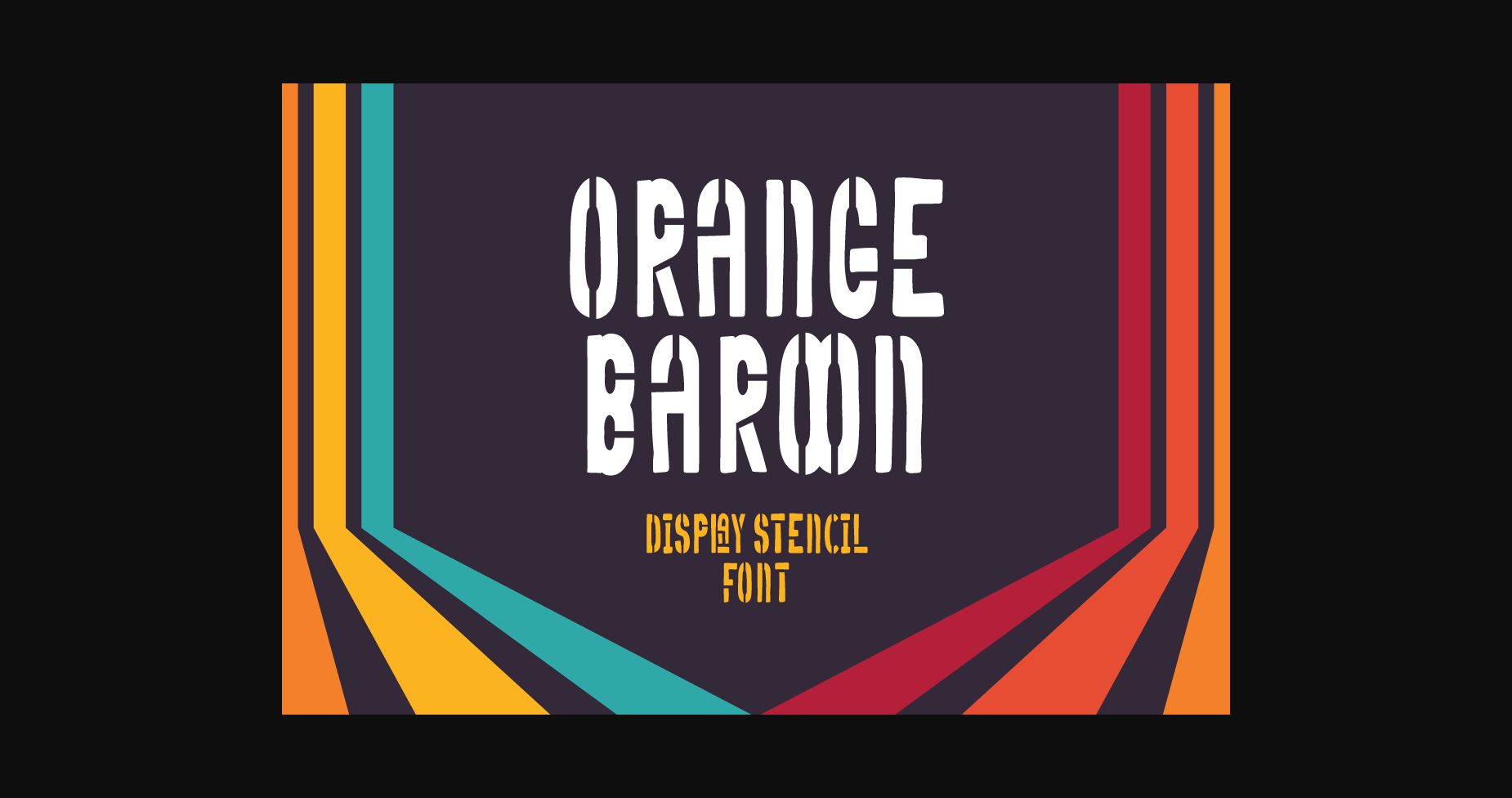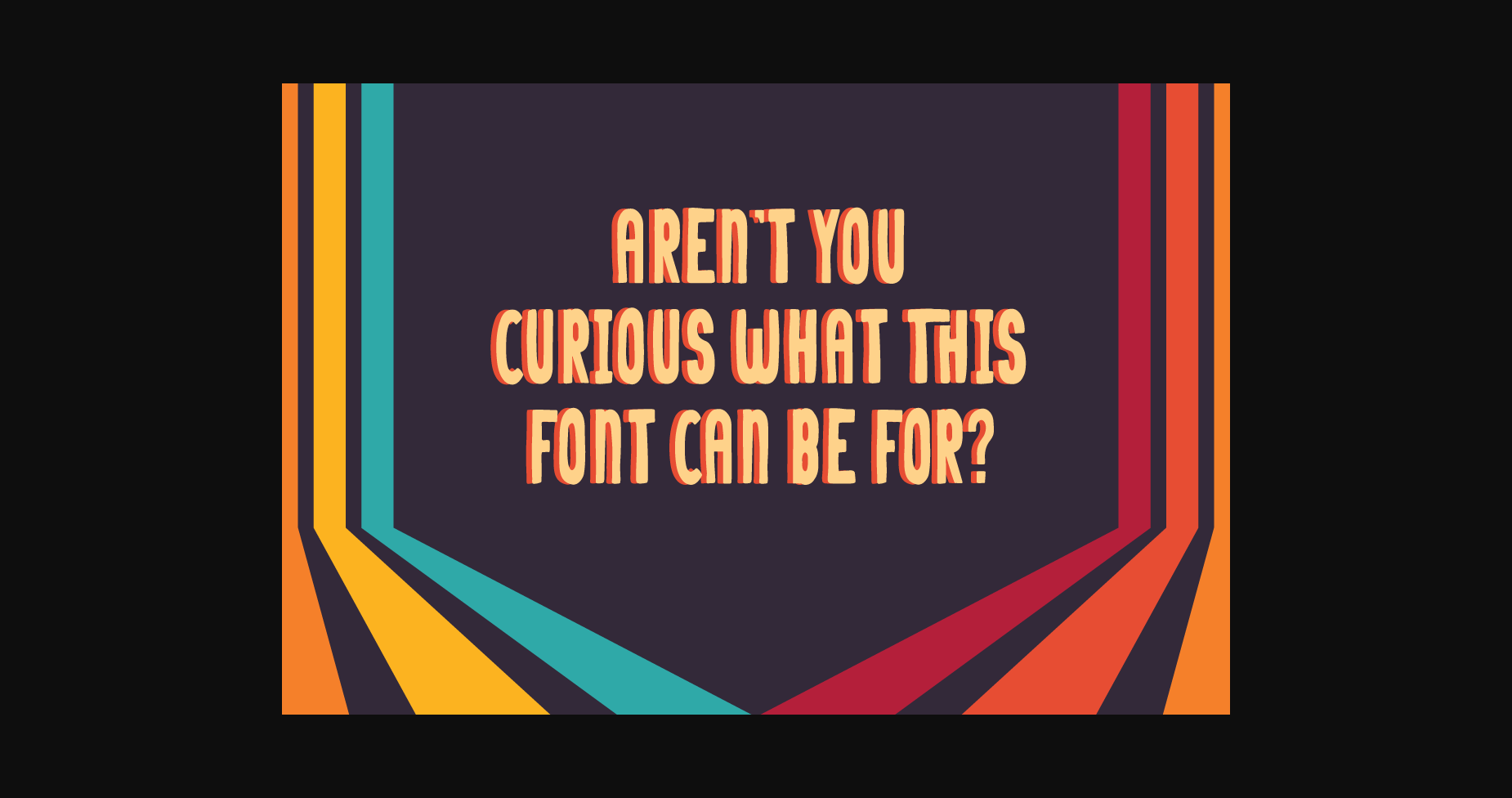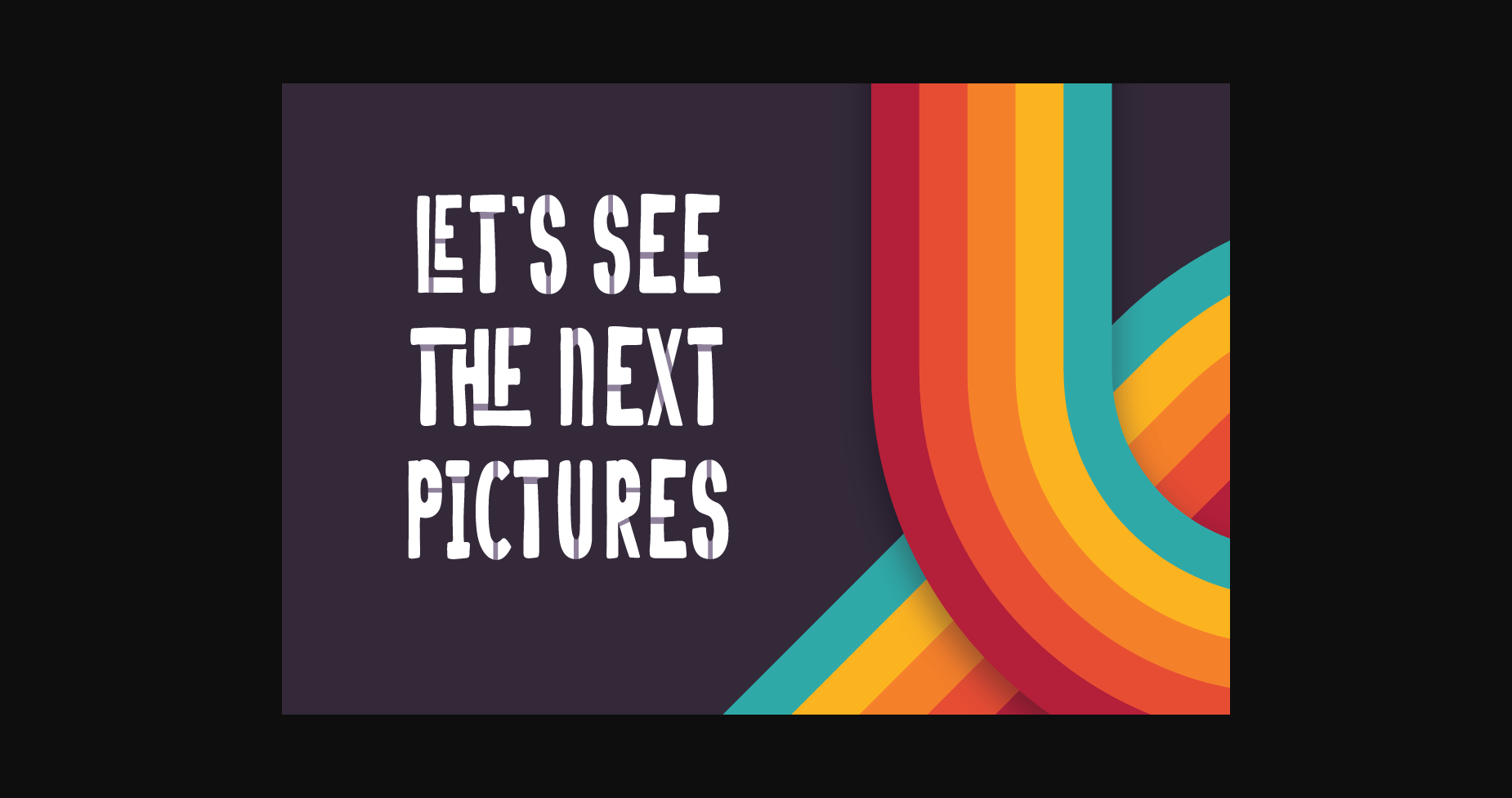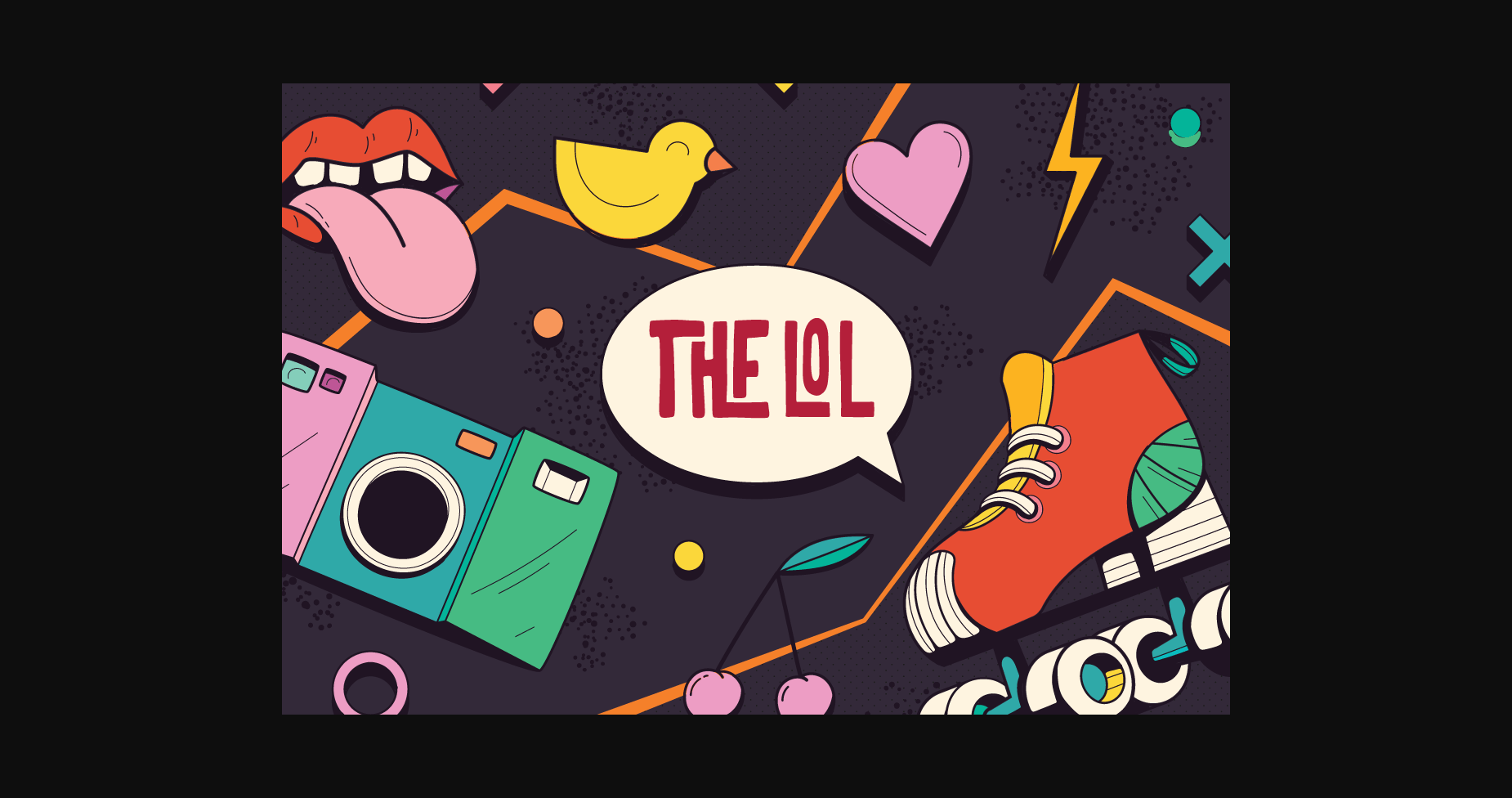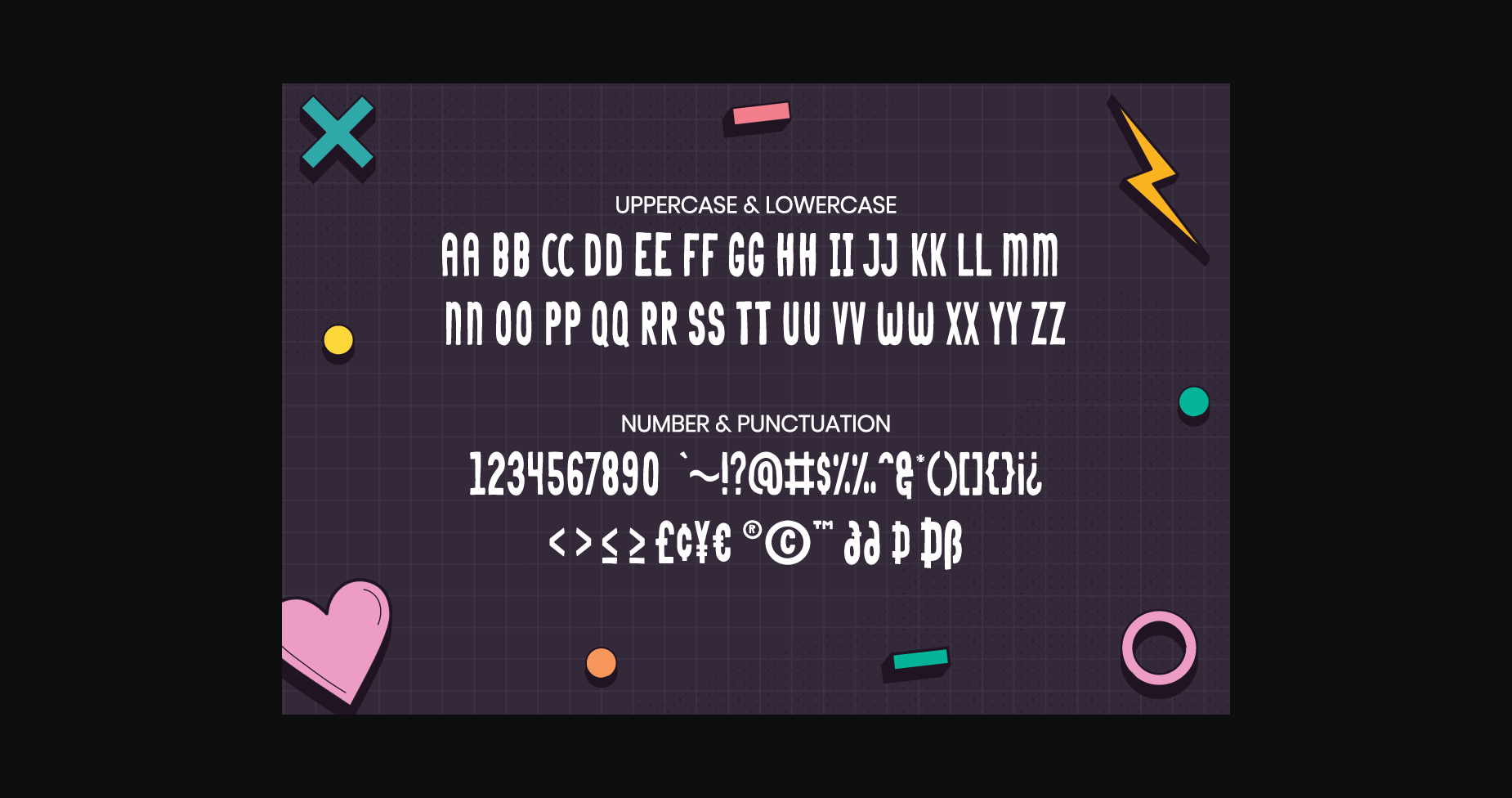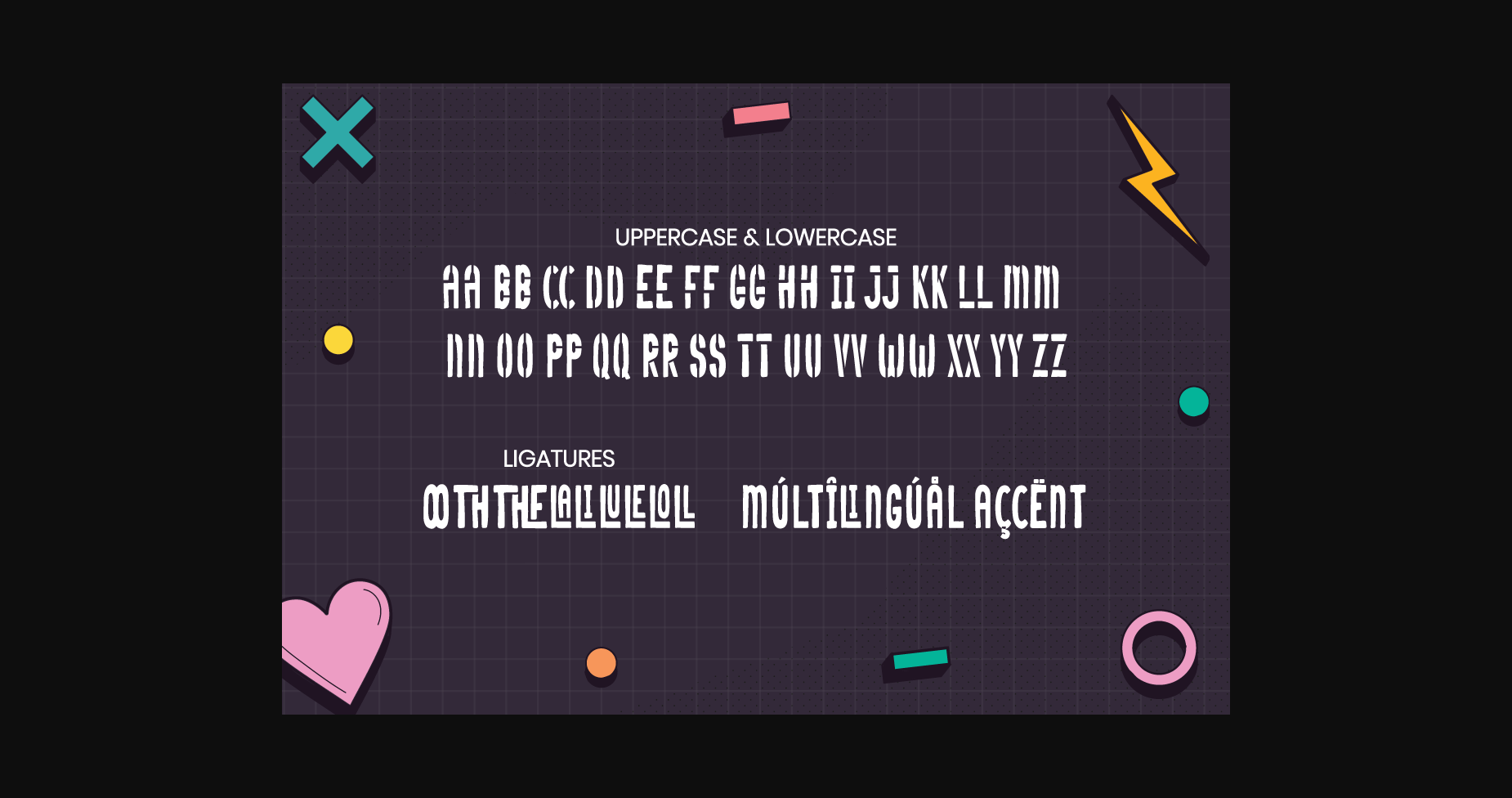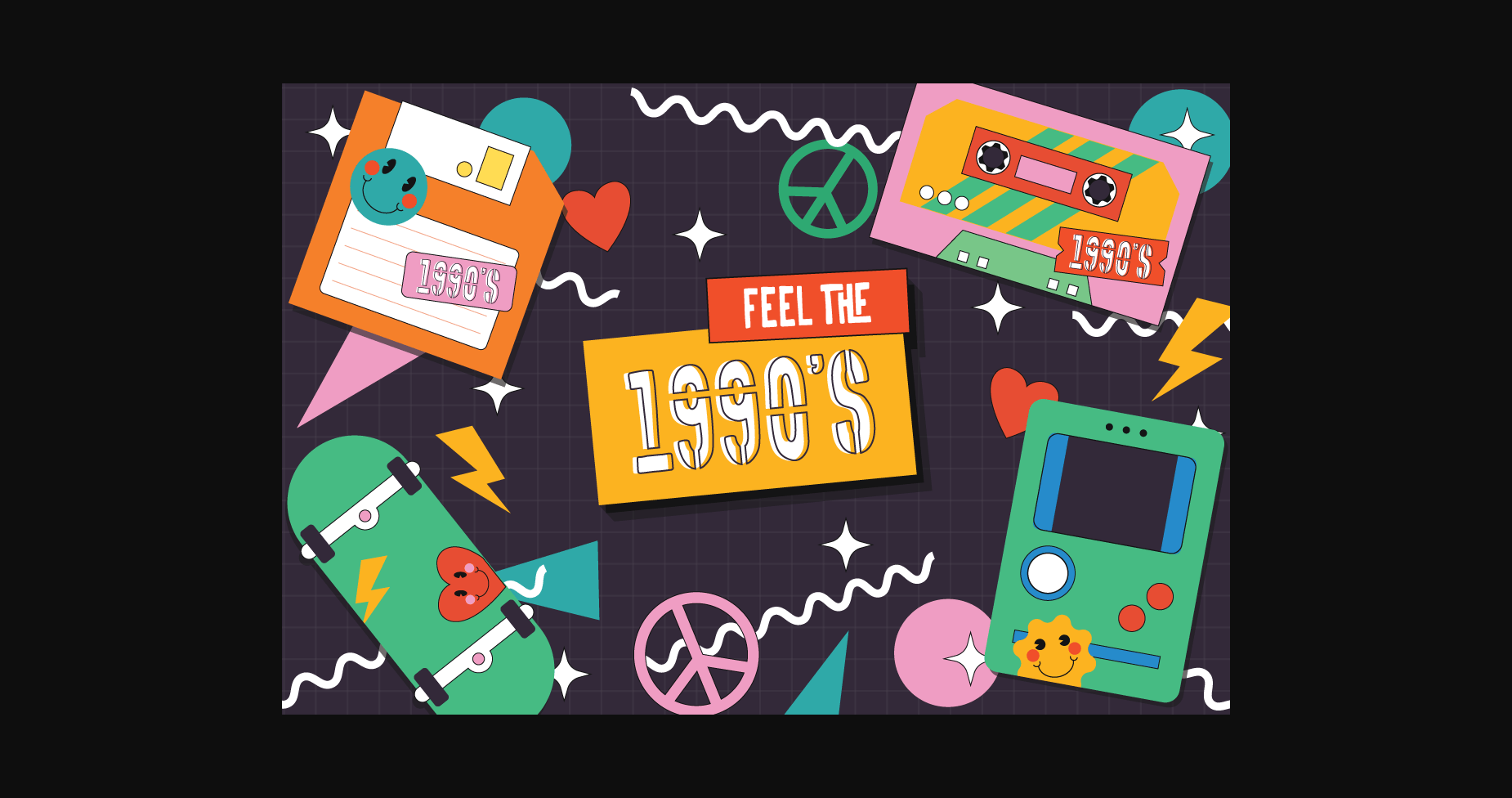
About Orange Baroon Font
Orange Baroon, inspired by the typeface of the 70s era, Orange Baroon has a vintage & retro stencil look.
Orange Baroon is perfect for vintage & retro style products, branding, logo, invitation, stationery, product packaging, merchandise, monogram,
blog design, game titles, cute style design, Book/Cover Title,s and more.